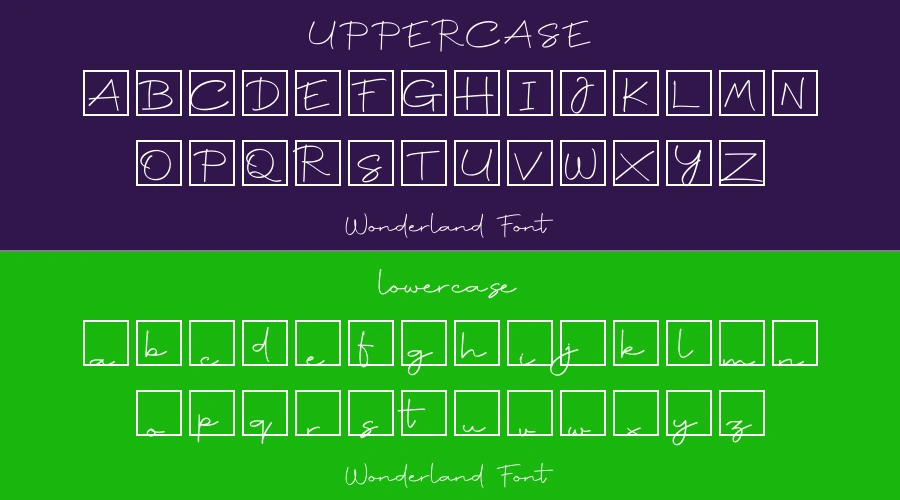
About Wonderland Font
Wonderland Font stands out for its distinctive combination of flowing forms and clarity. Ideal for corporate reports, it provides the consistency and scholarly value that professional projects demand. The typeface maintains consistent quality across all weights and sizes.
Key features include refined precise alignment and practical period-specific forms, enhancing typographic expression. In specification sheets applications, Wonderland Font demonstrates exceptional performance. The beak formation and artistic merit contribute to its distinctive character and professional appeal.